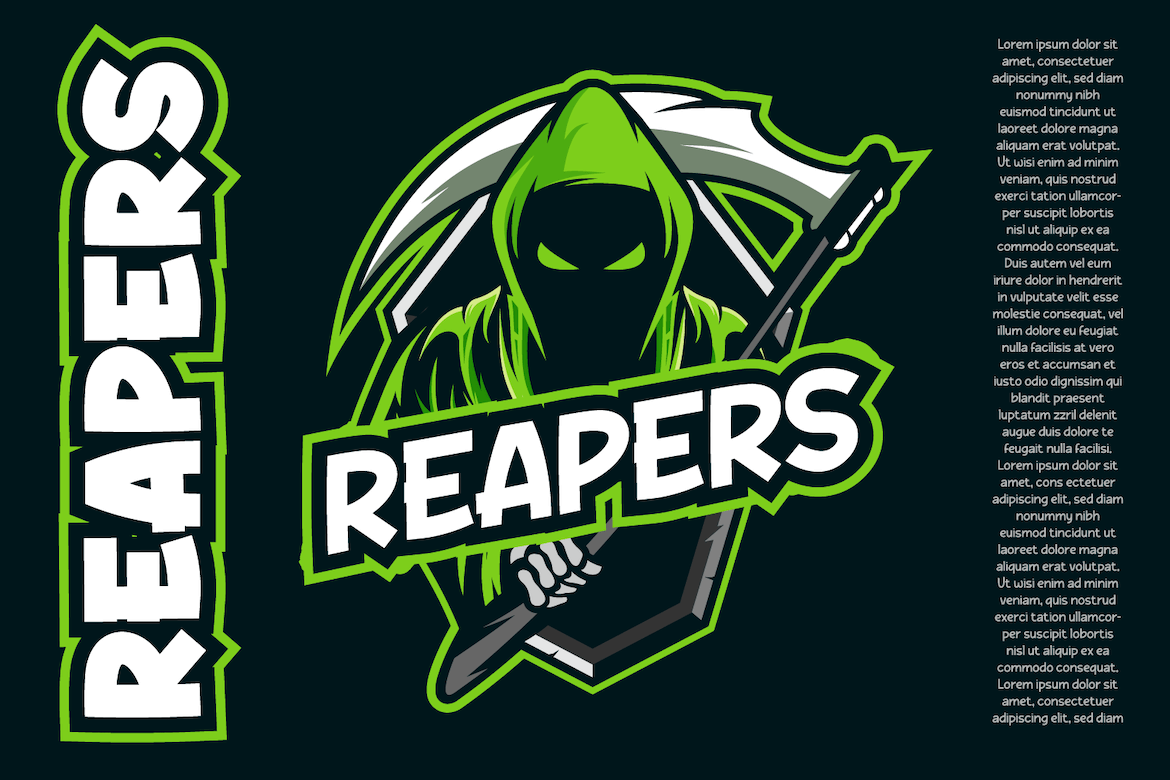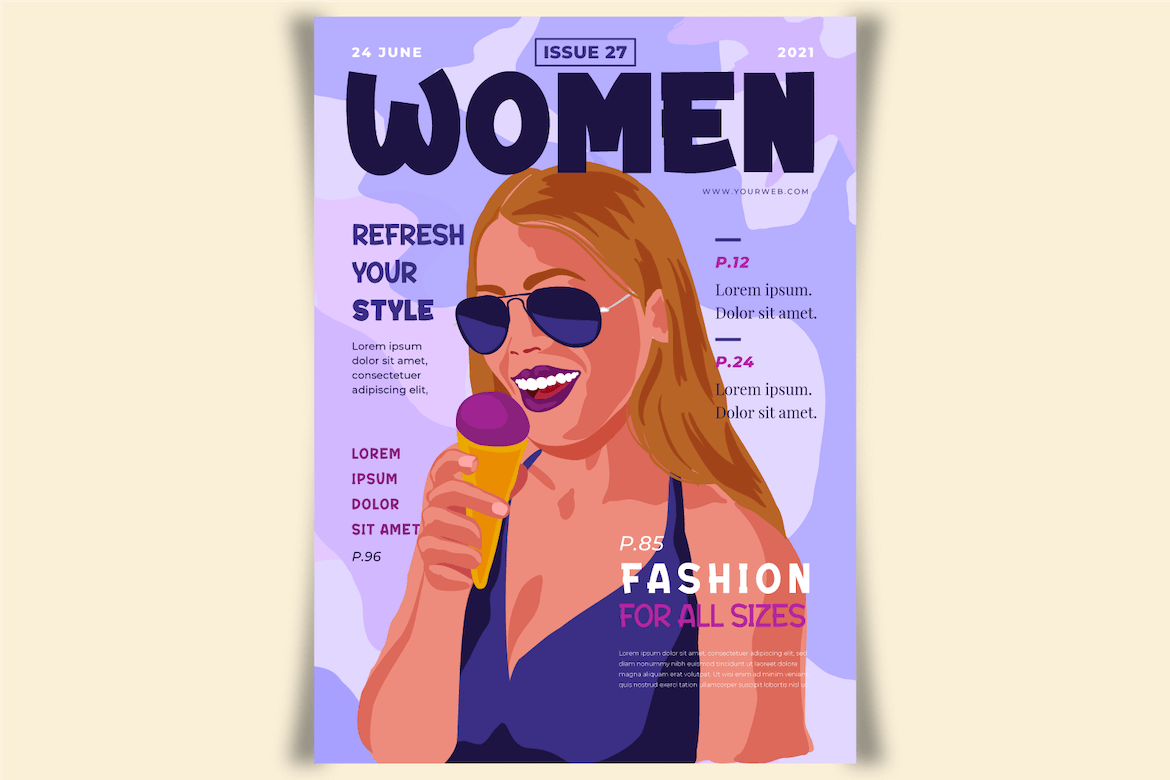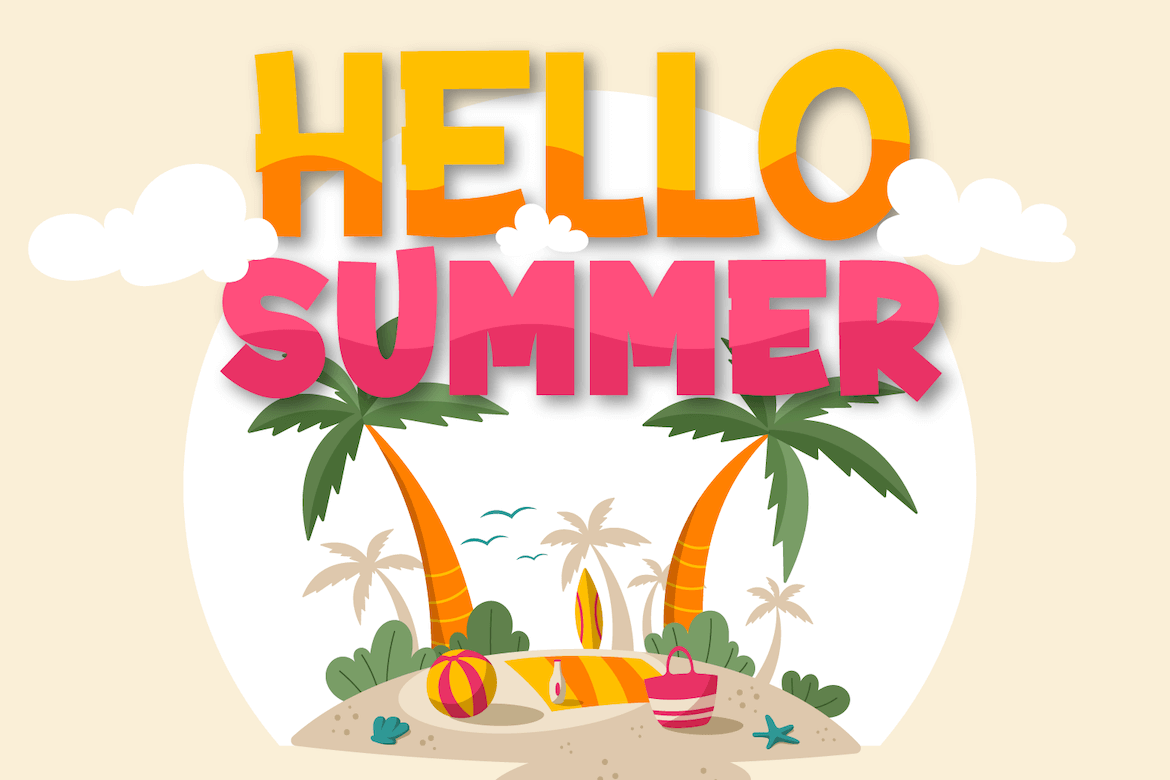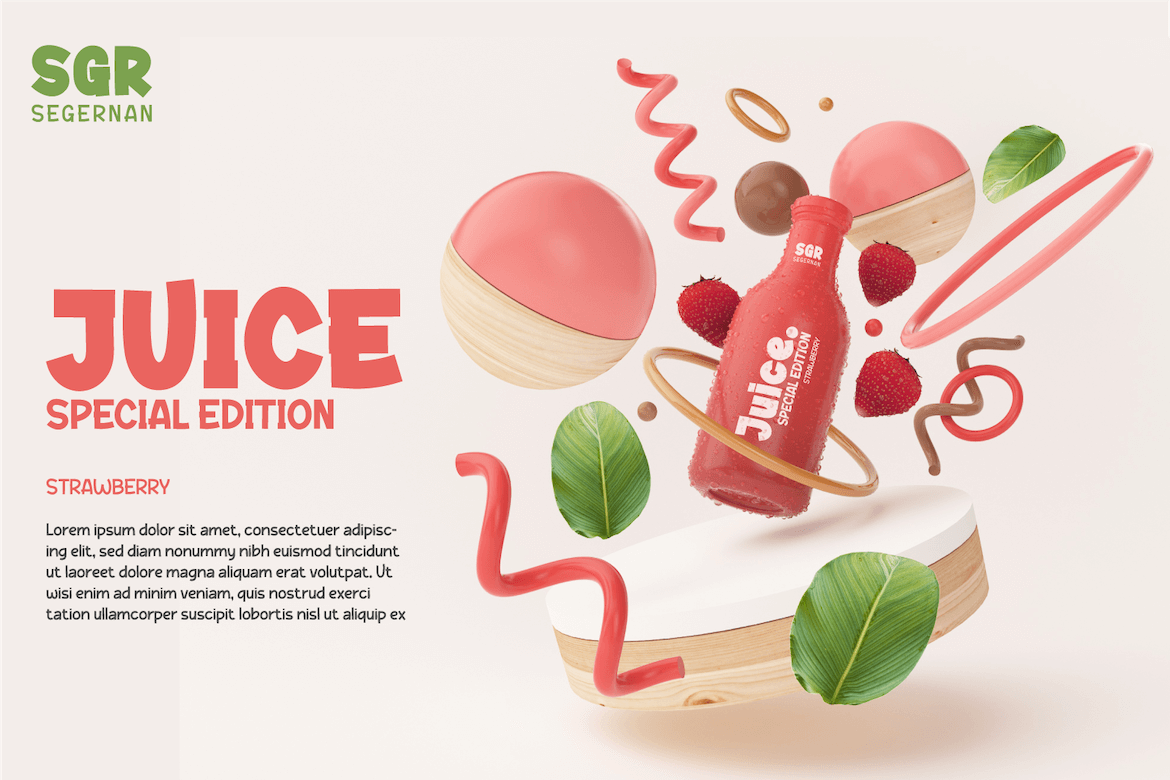
Waghu Font
Waghu Display Font
This is a cool, thick lettered and modern display font. A bit quirky and unique, this font will instantly make your designs stand out.